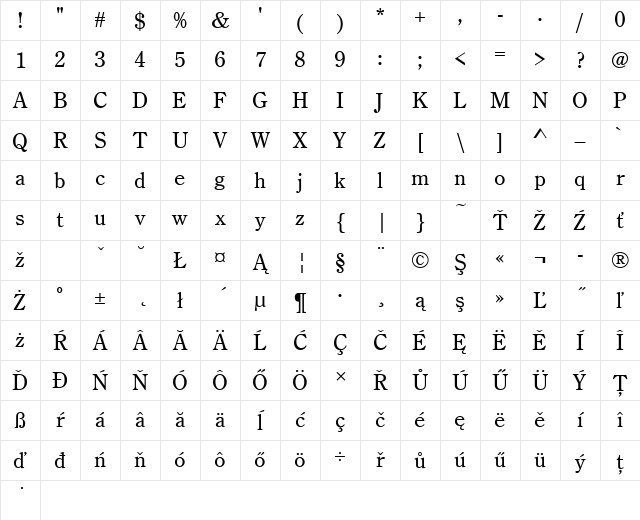
CenturyOldStyTEE Regular
Design Context for CenturyOldStyTEE
CenturyOldStyTEE is a composed and adaptable typeface that performs quietly and consistently across a wide range of design contexts.